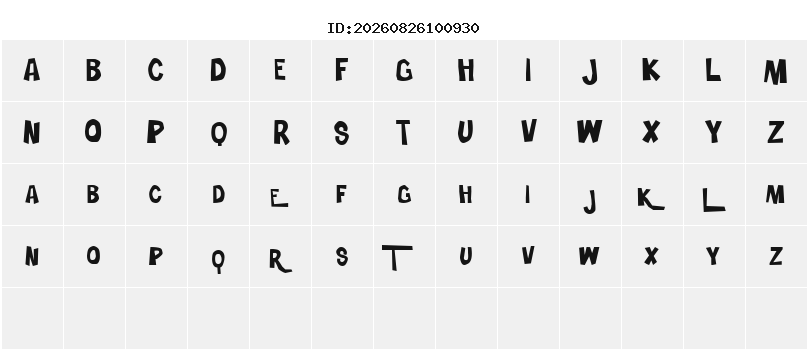
Weatherman Preview
• Font Name: Weatherman
• Full Font Name: Weatherman
• PostScript Name: Weatherman
About Weatherman.ttf
Weatherman.ttf is a modern, elegant sans-serif font designed for ultimate readability and visual harmony. Perfect for branding, headlines, web design, and print materials.